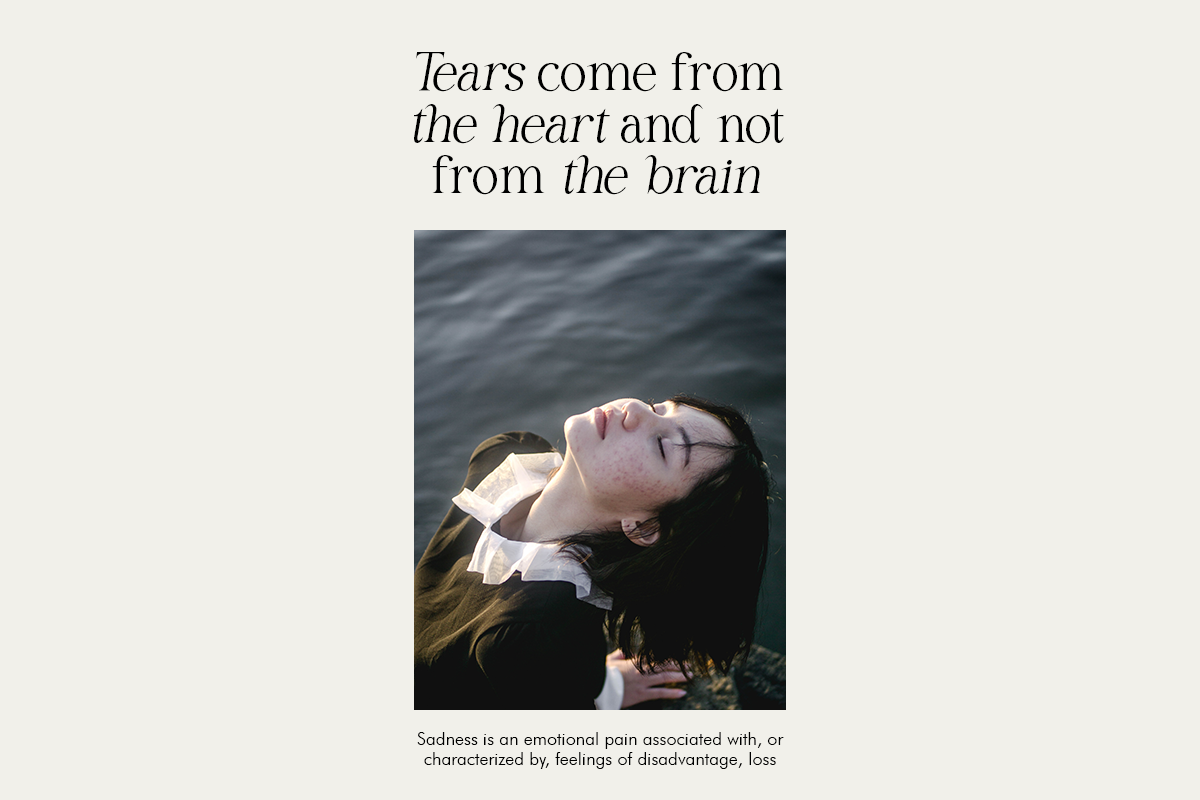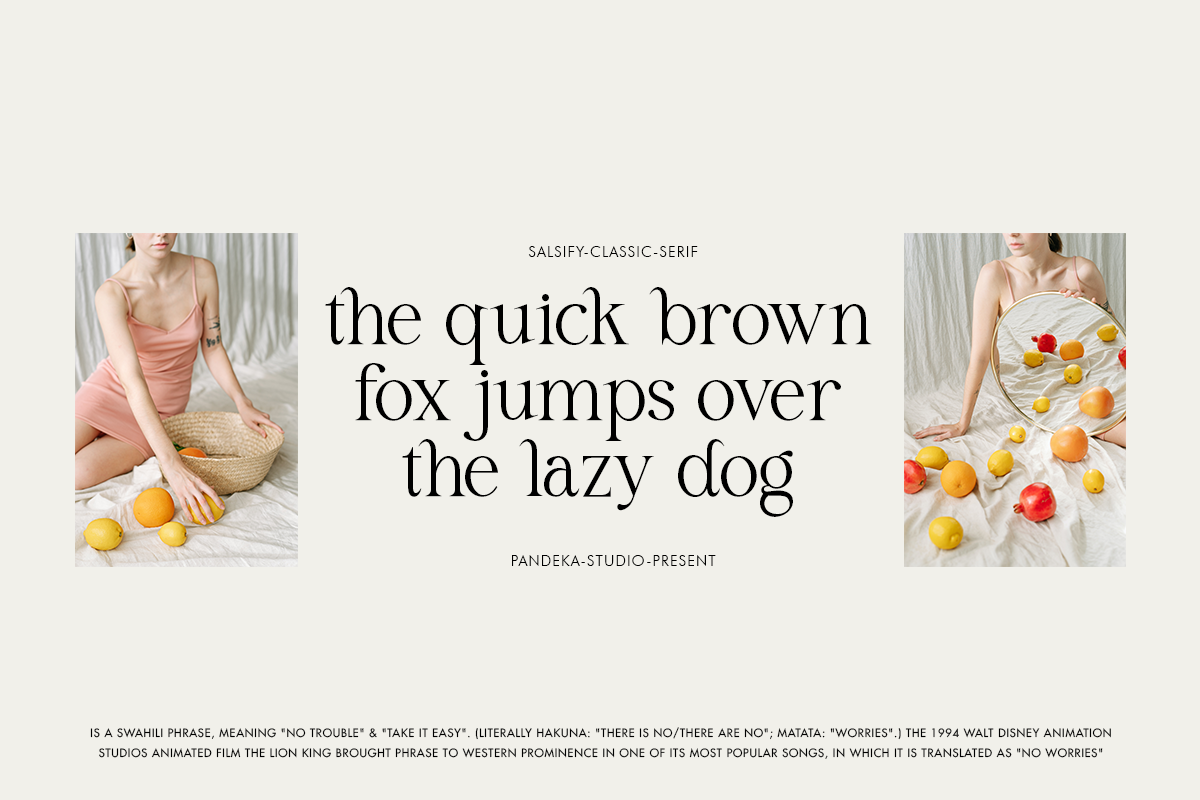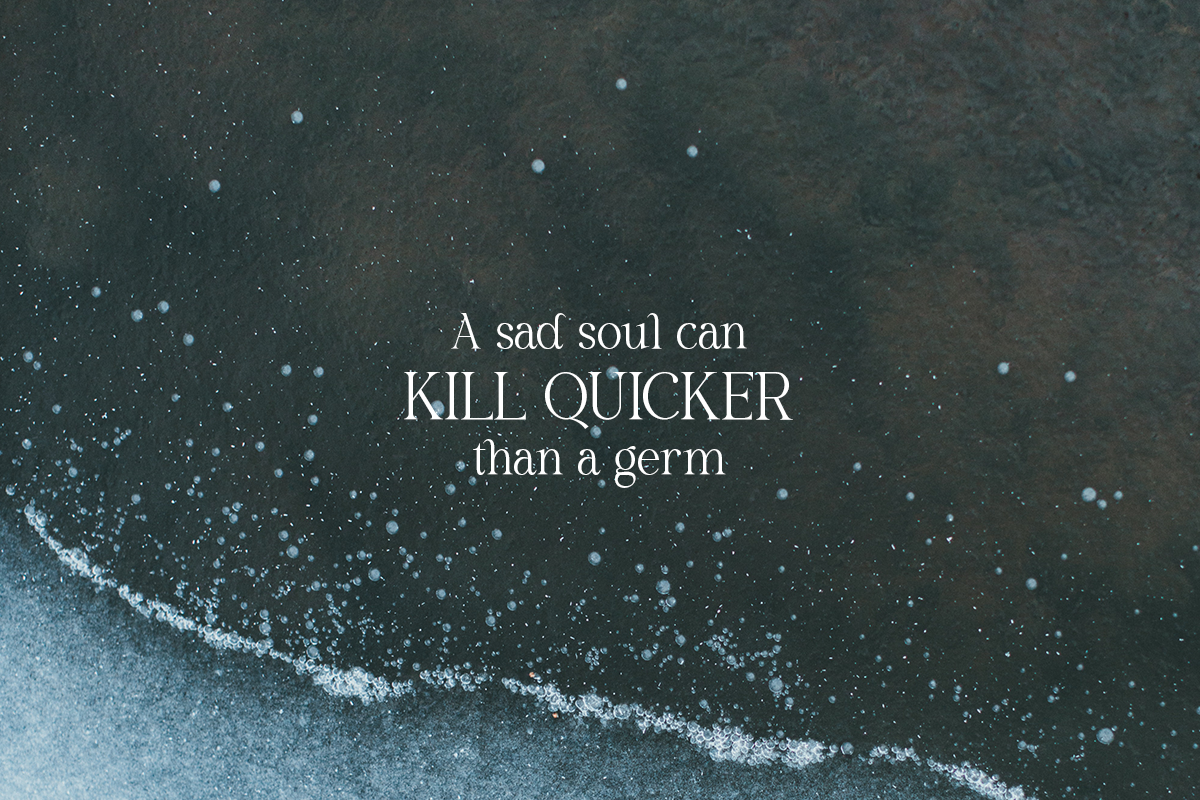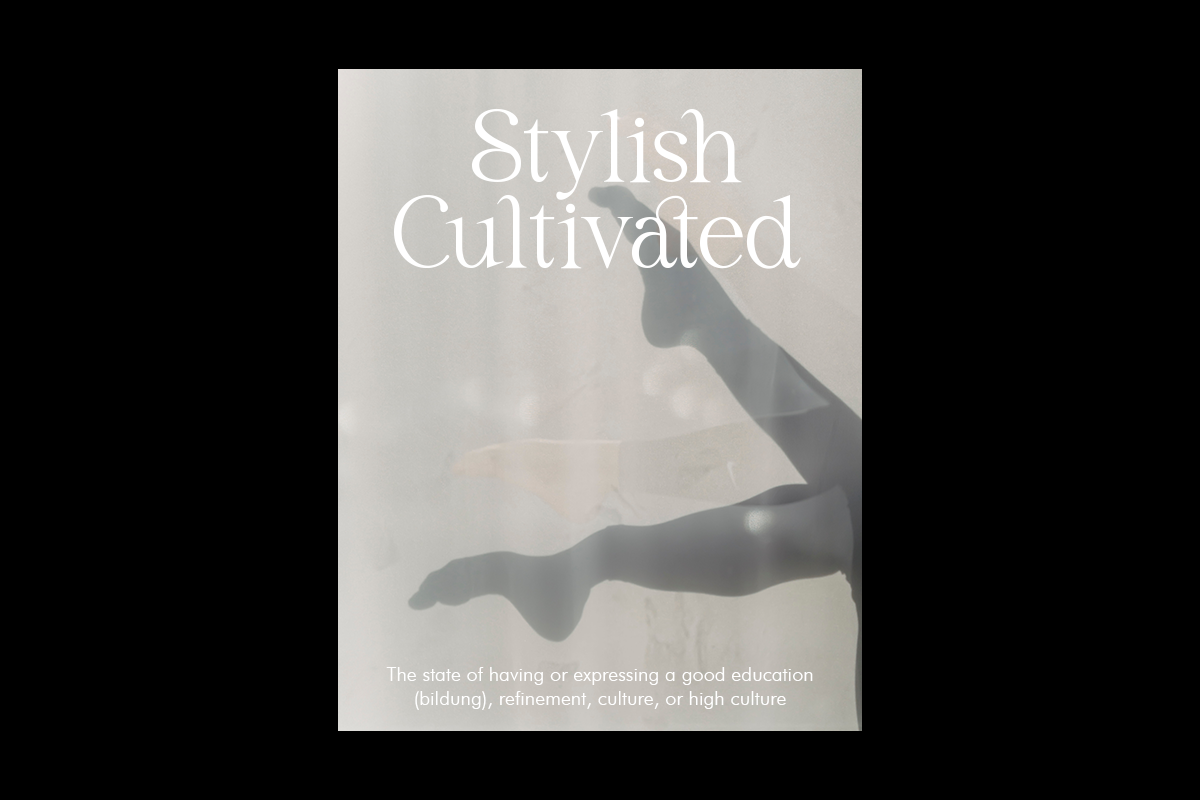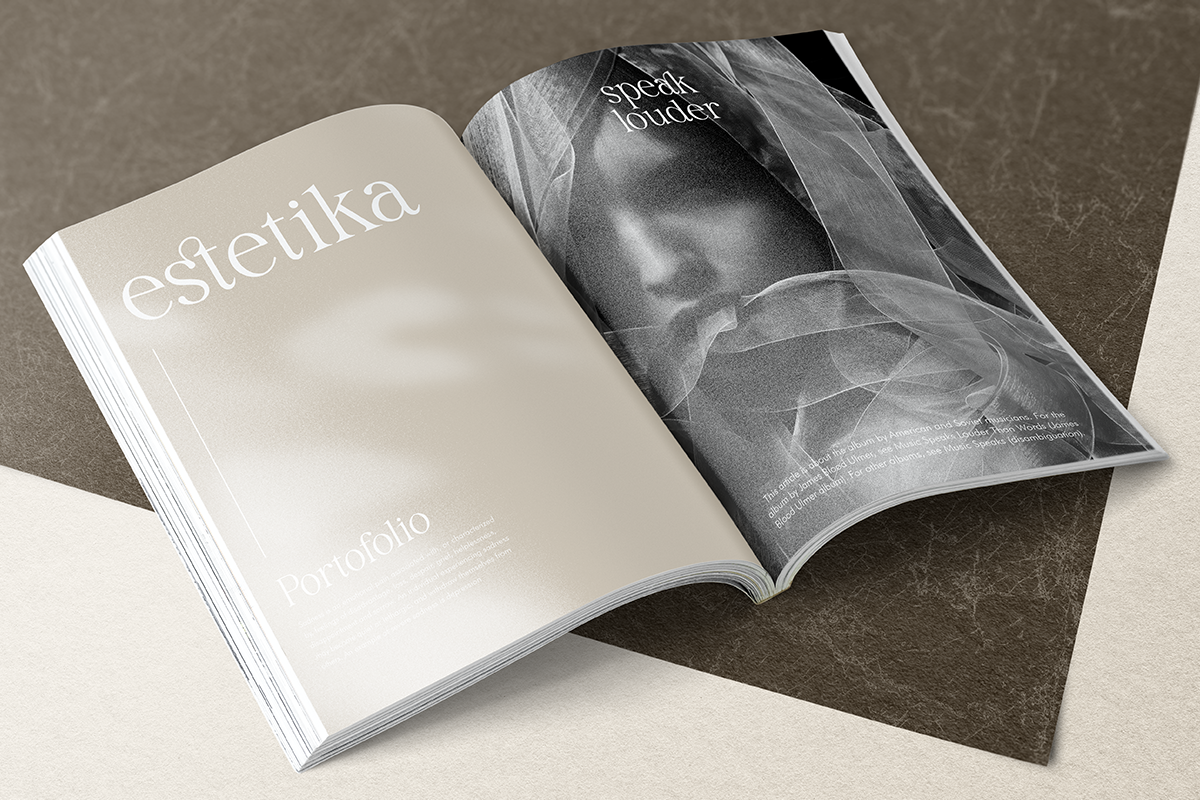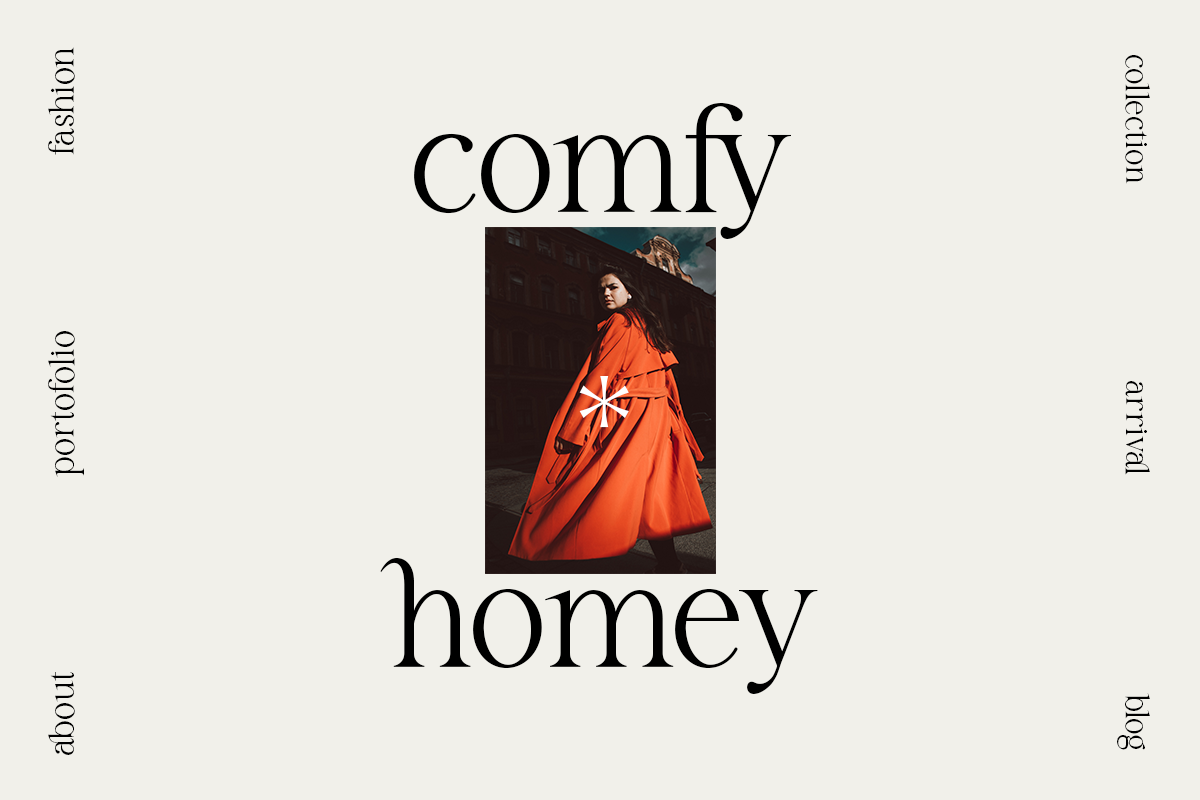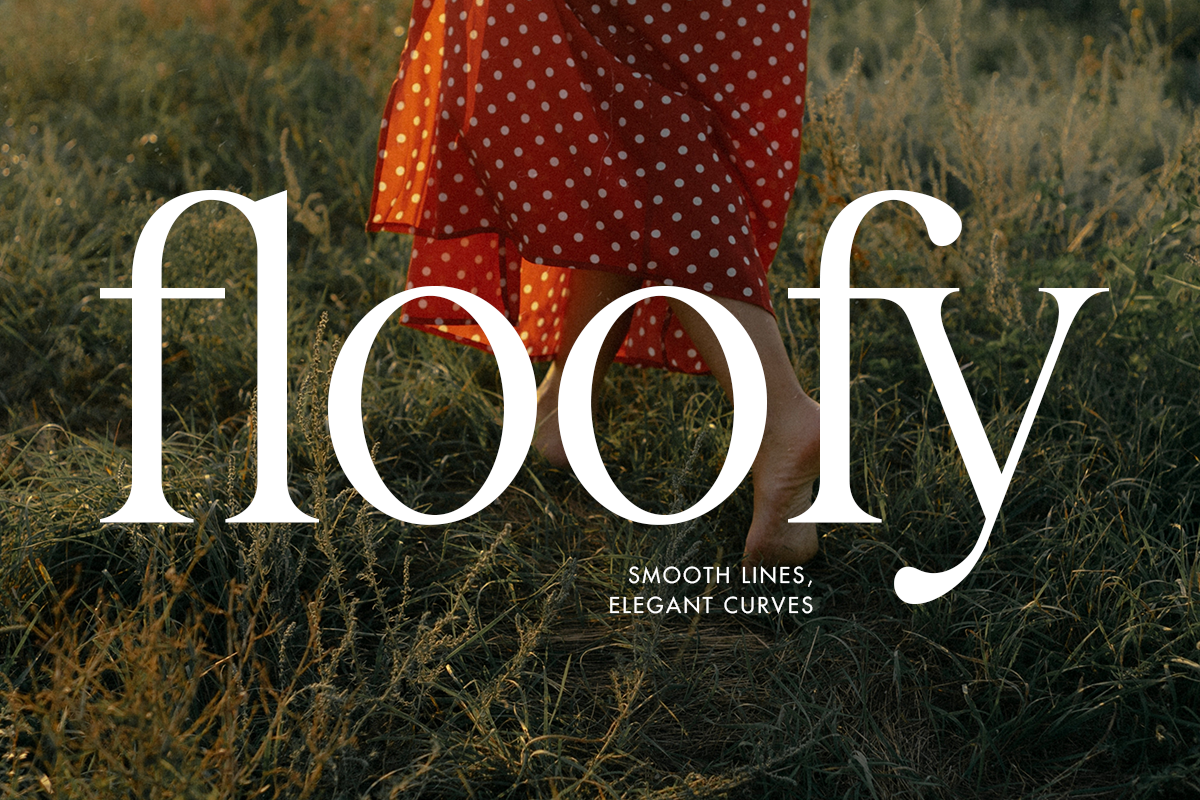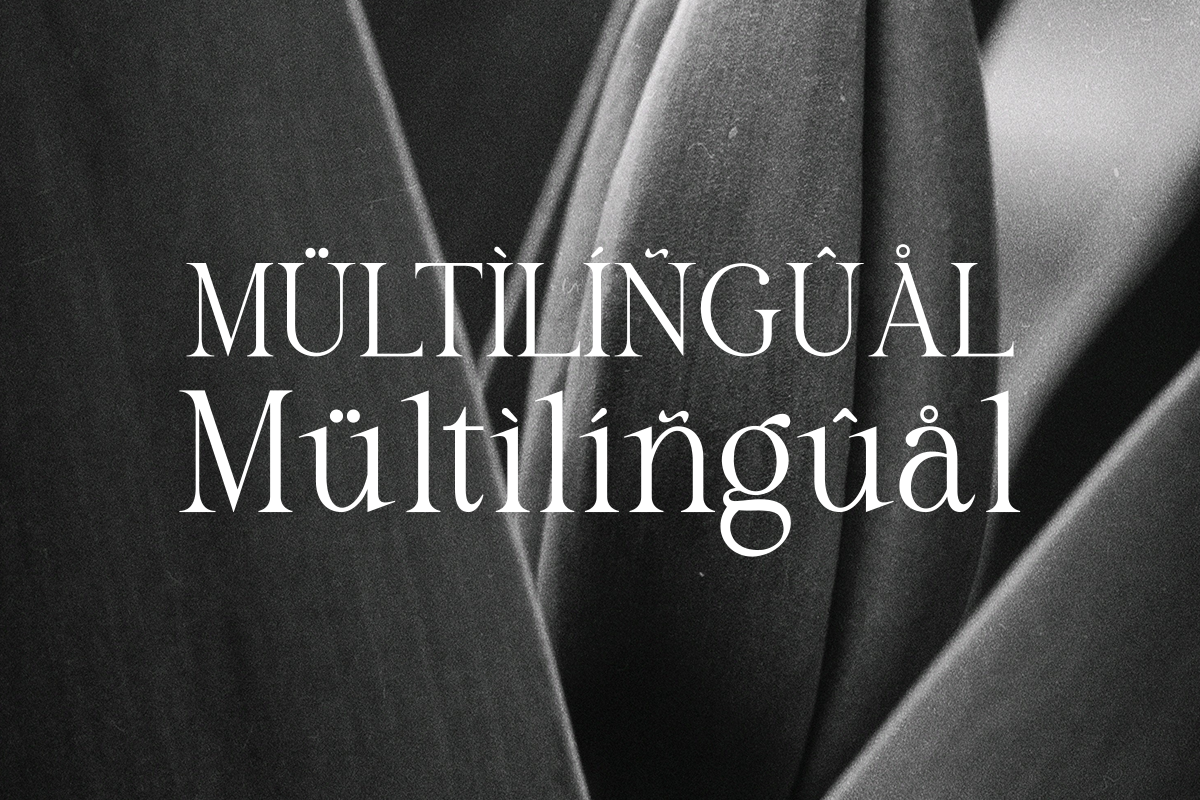
Salsify - Classic Thin Serif
Say hello to the new classic thin serif, Salsify!
Salsify - Stunningly crisp upper and lowercase typeface that looks incredible in both large settings as a display text. Perfect for fashion work, magazines or just a classy logo design.
- Regular and Italic